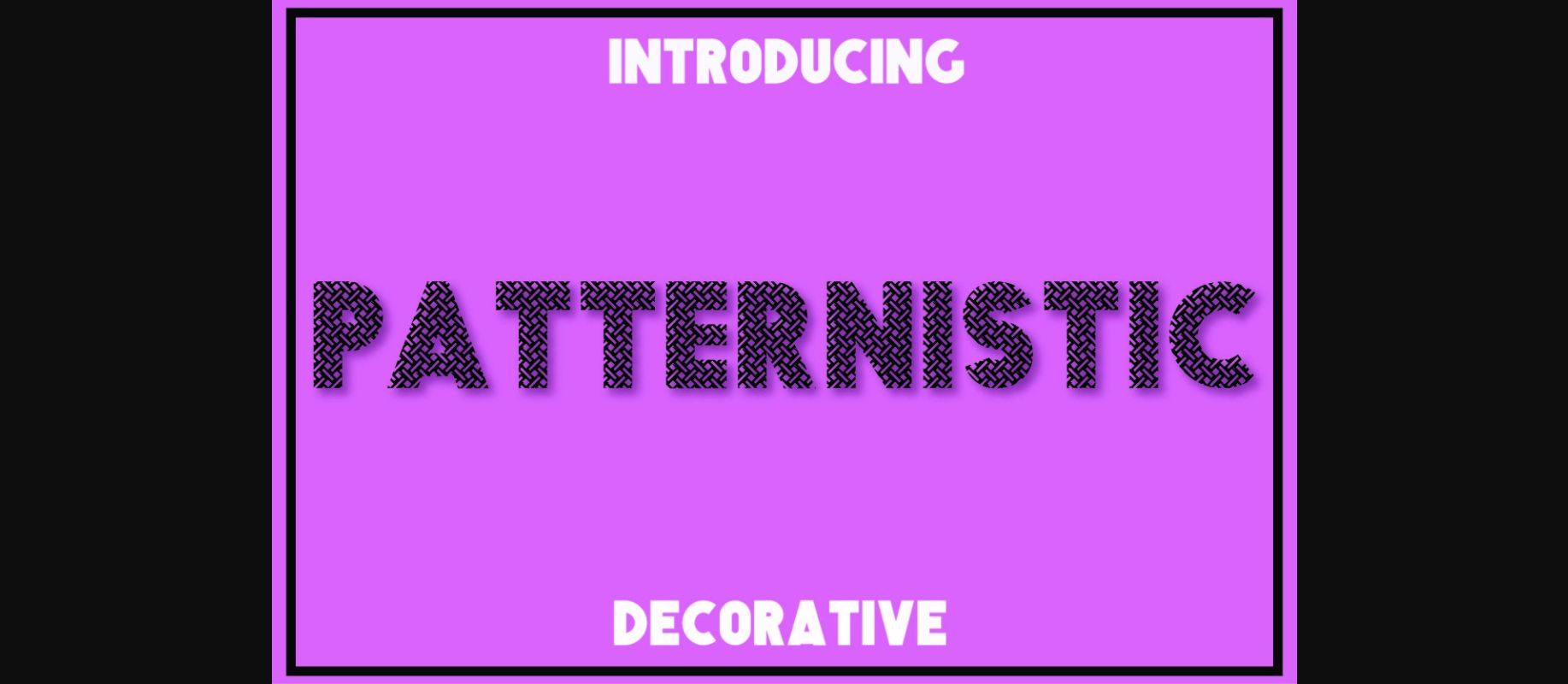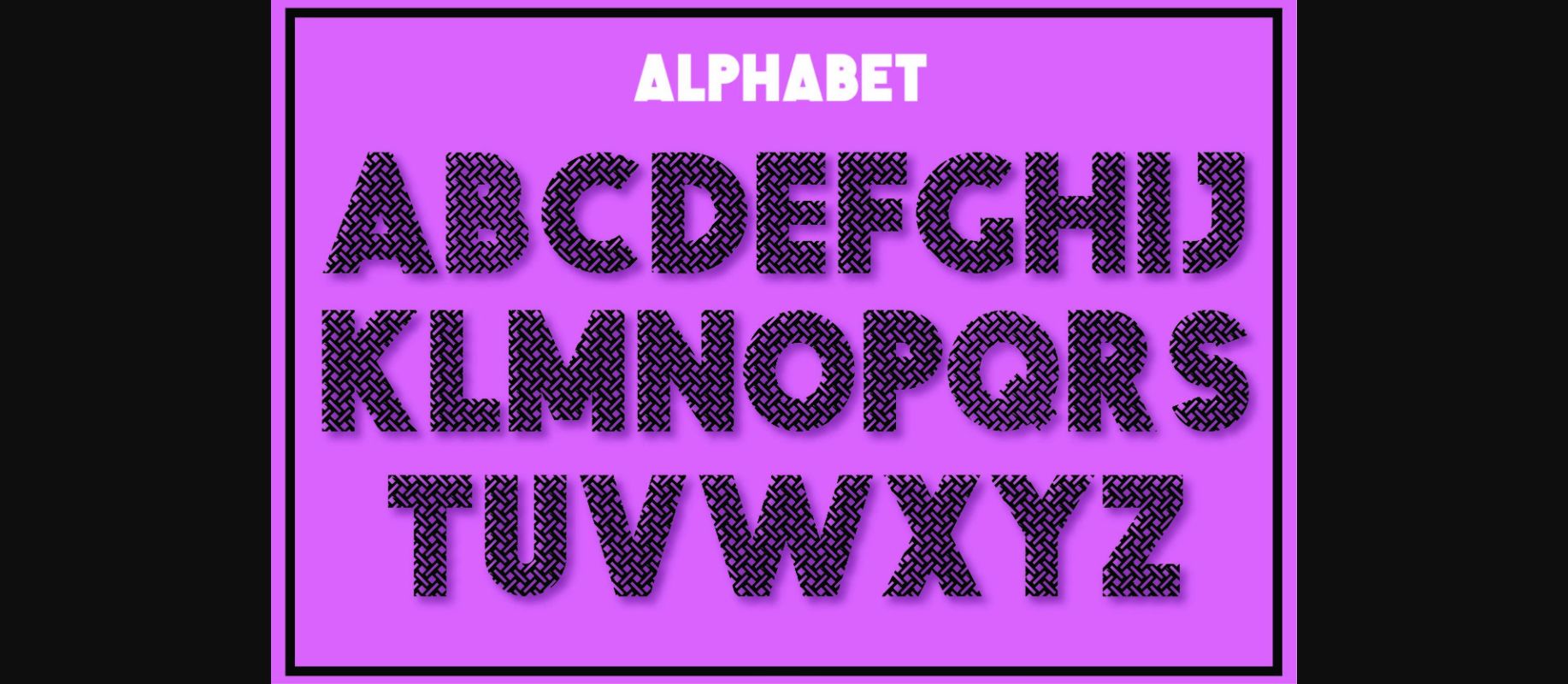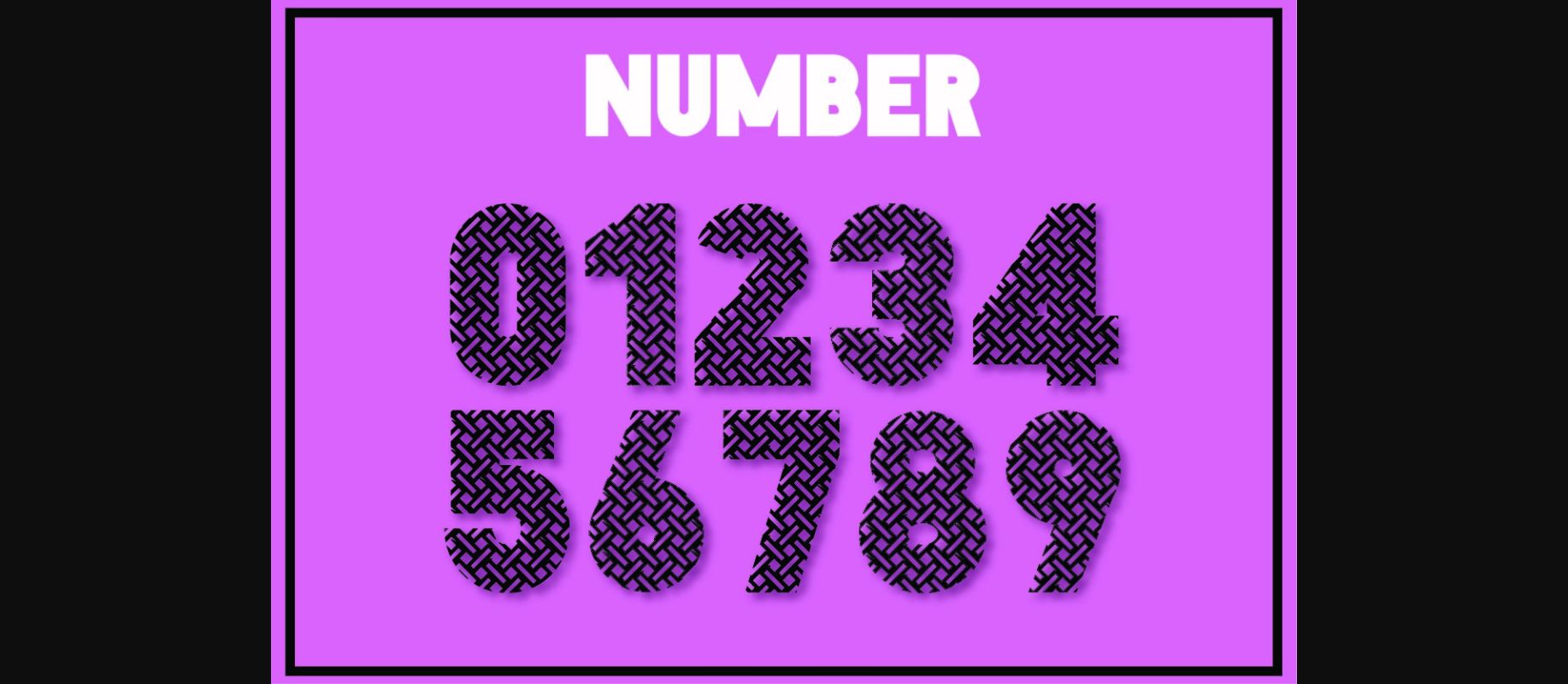
Patternistic Font
About Patternistic Font
Patternistic is a cool and playful decorative font. It embodies fun and authenticity and is the perfect choice for any children activity or school project.